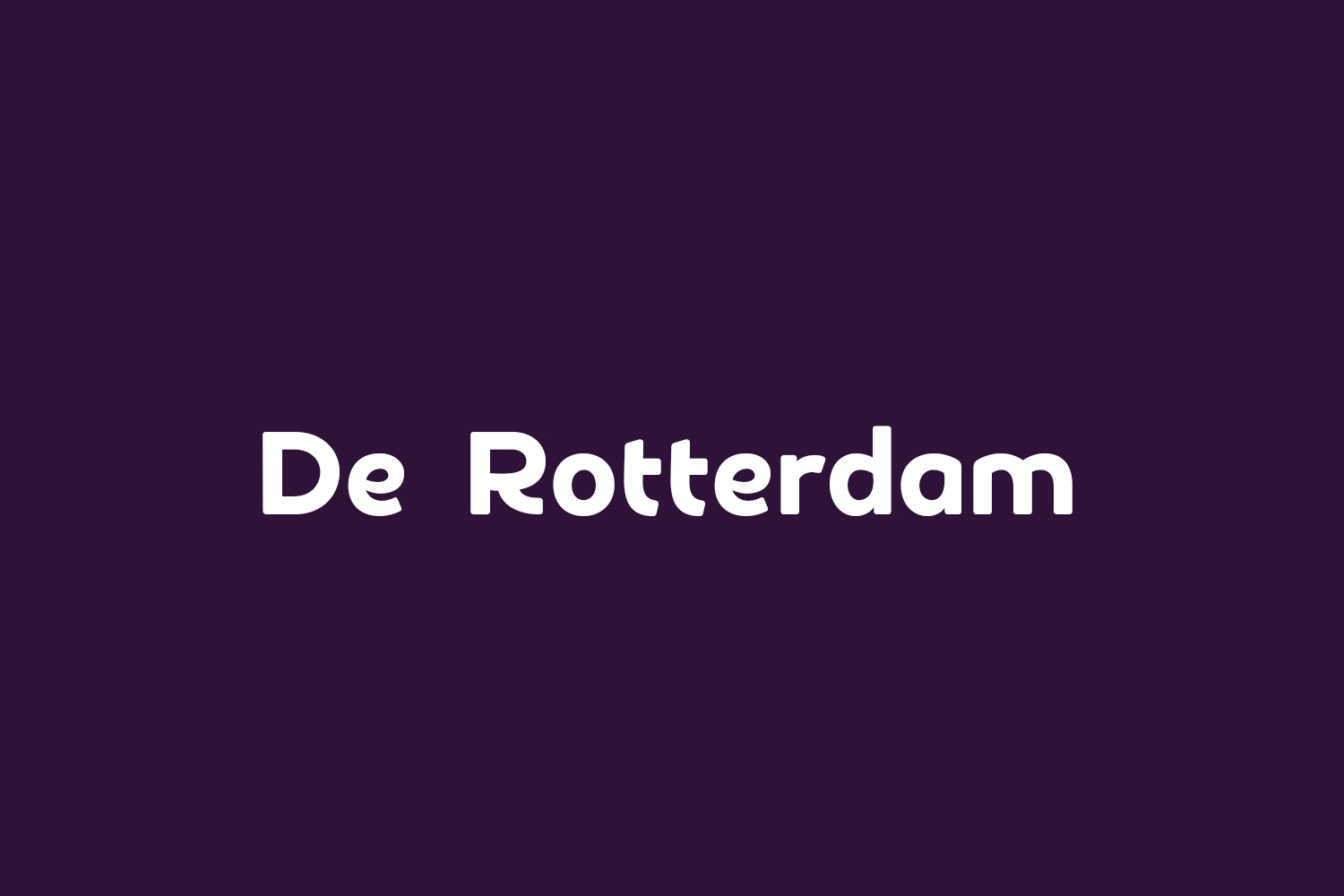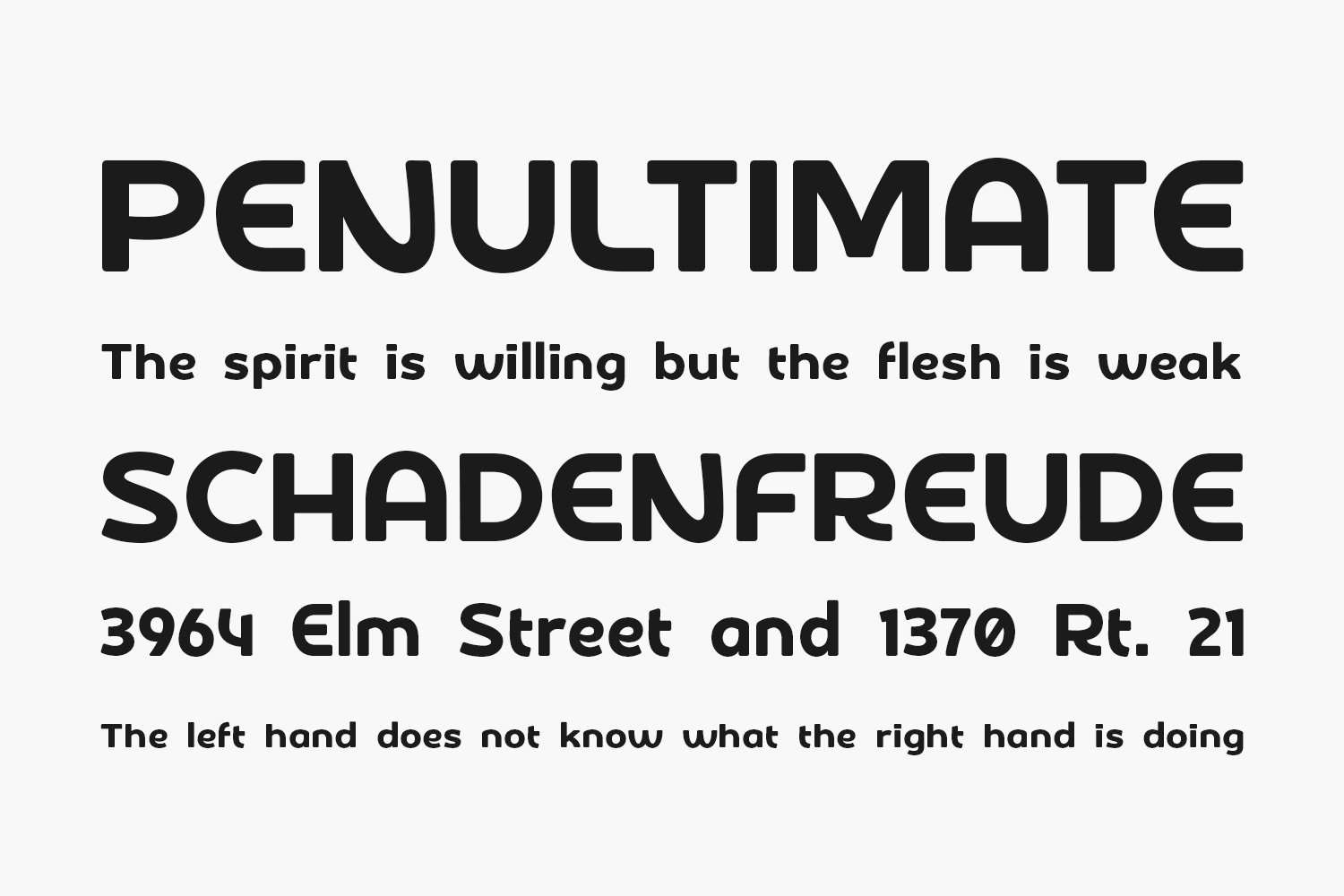
De Rotterdam Free Font is a demo version of the font called “De Rotterdam”* after this huge and super cool building. Free for personal use only. Please purchase the full version for commercial use.
Designed by Roland Huse Design